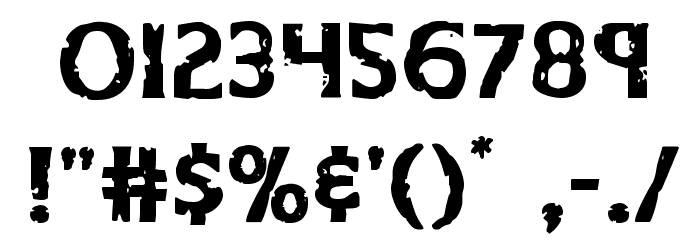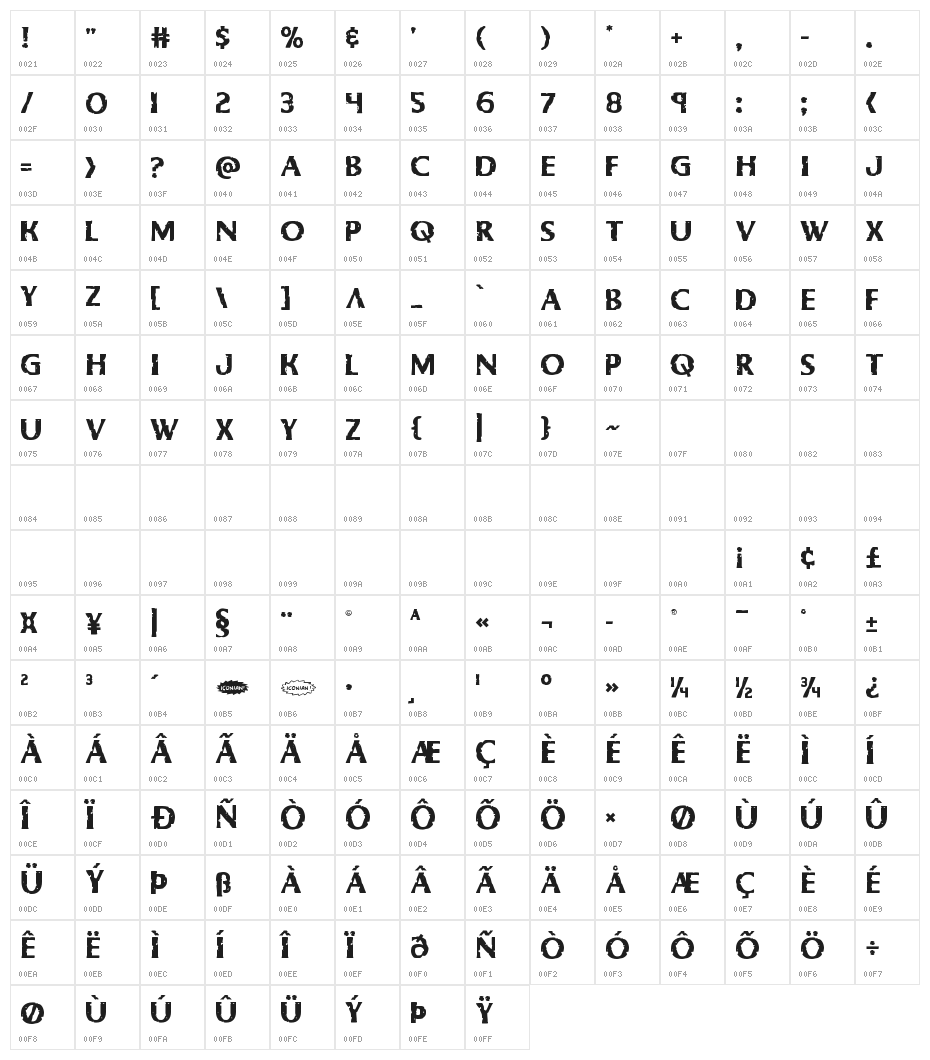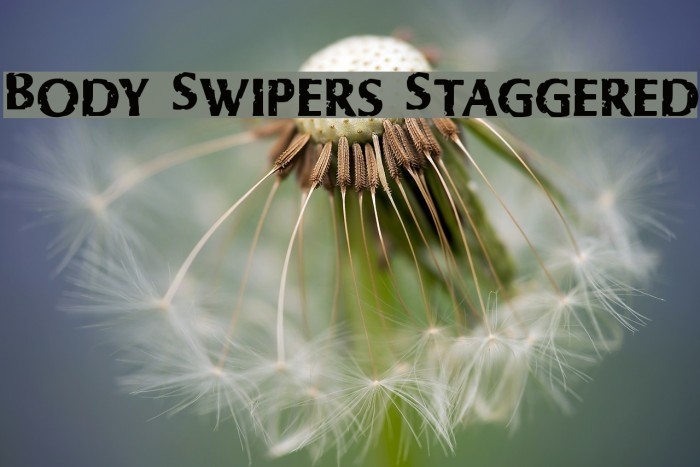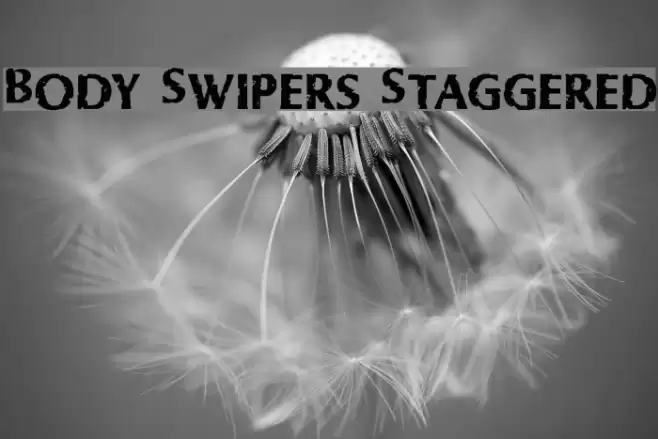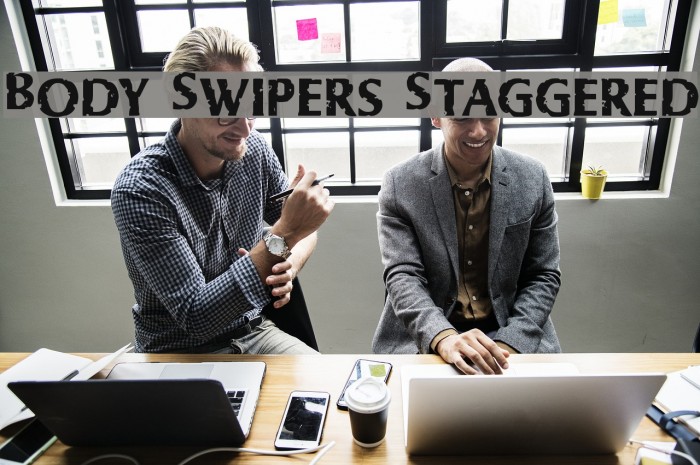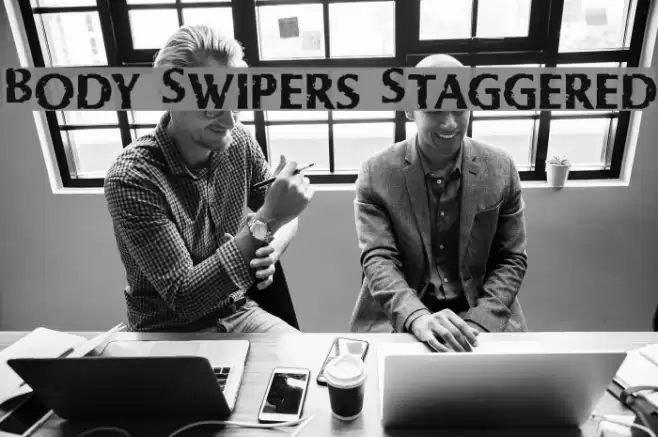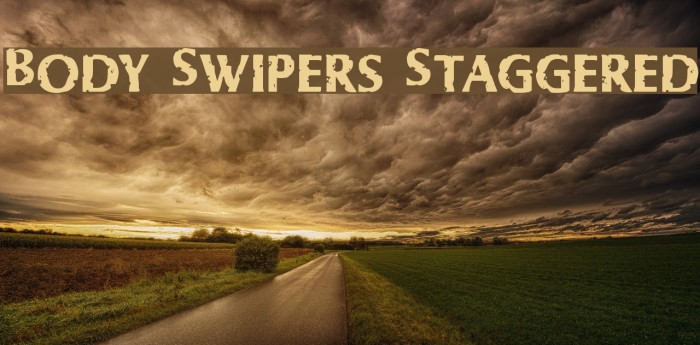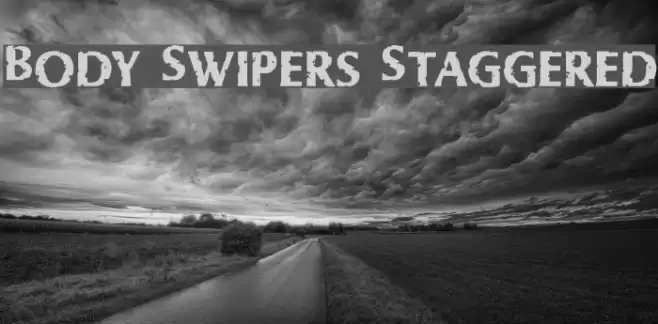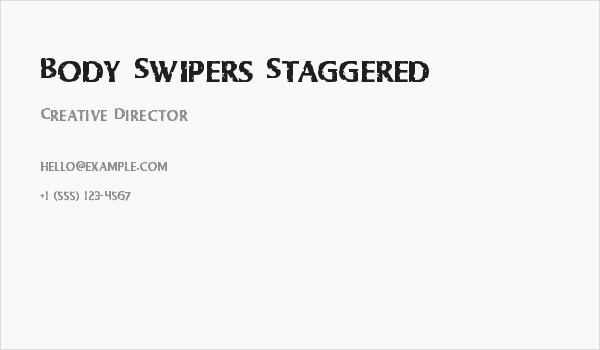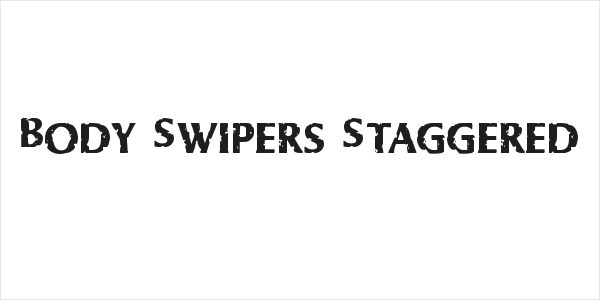
Body Swipers Staggered Font
Body Swipers Staggered Description
This font features a bold, distressed style with a rugged and textured appearance. The characters are uppercase and lowercase letters, numerals, and a variety of special characters. Each letter has a unique, worn-out look, giving it a vintage and industrial feel. The edges are rough and uneven, adding to the overall distressed aesthetic. This font is ideal for projects that require a bold statement with a touch of grunge or urban flair. It can be used to create eye-catching headlines, posters, and branding materials that stand out with their distinctive style.
| Overall Style | Vintage, Grunge |
| Proposed Projects | Ideal for posters, headlines, branding, and any design needing a bold, grunge aesthetic. |